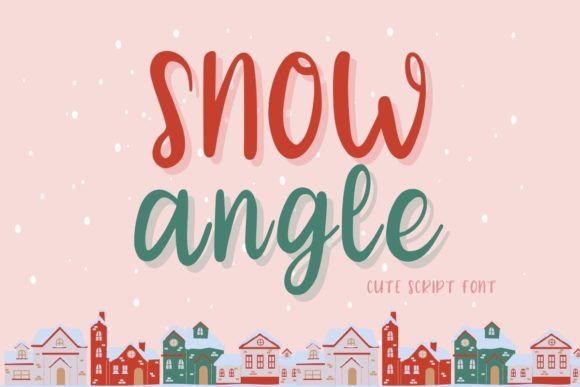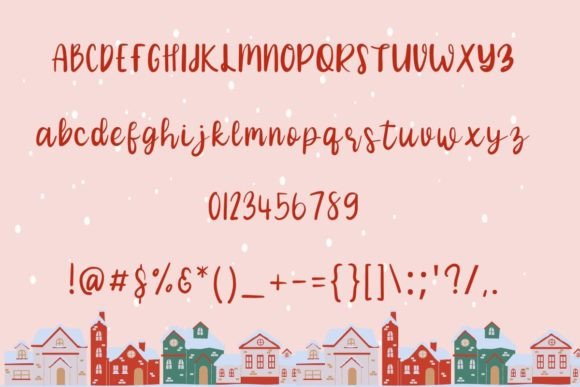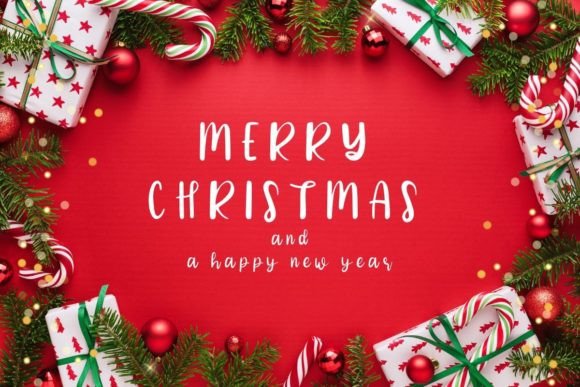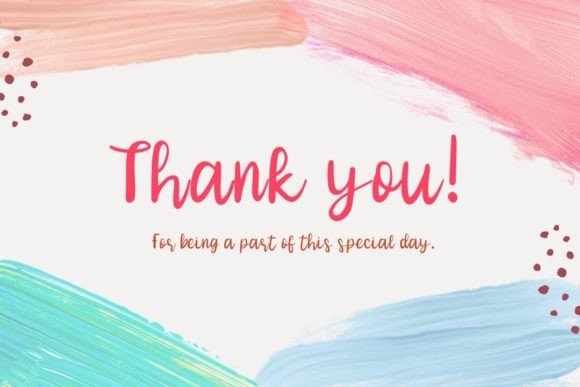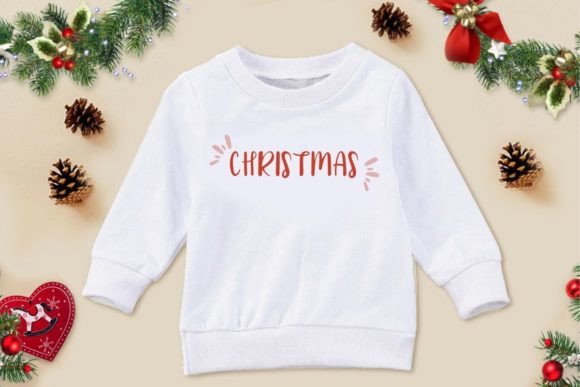
Snow Angle Font
About Snow Angle Font
Snow Angle is a cute handwritten script font. Even though it might appear generic, this font still maintains a delicate charm. You can use it to create birthday cards, wedding invitations, beautiful wall art, social media posts, and more!